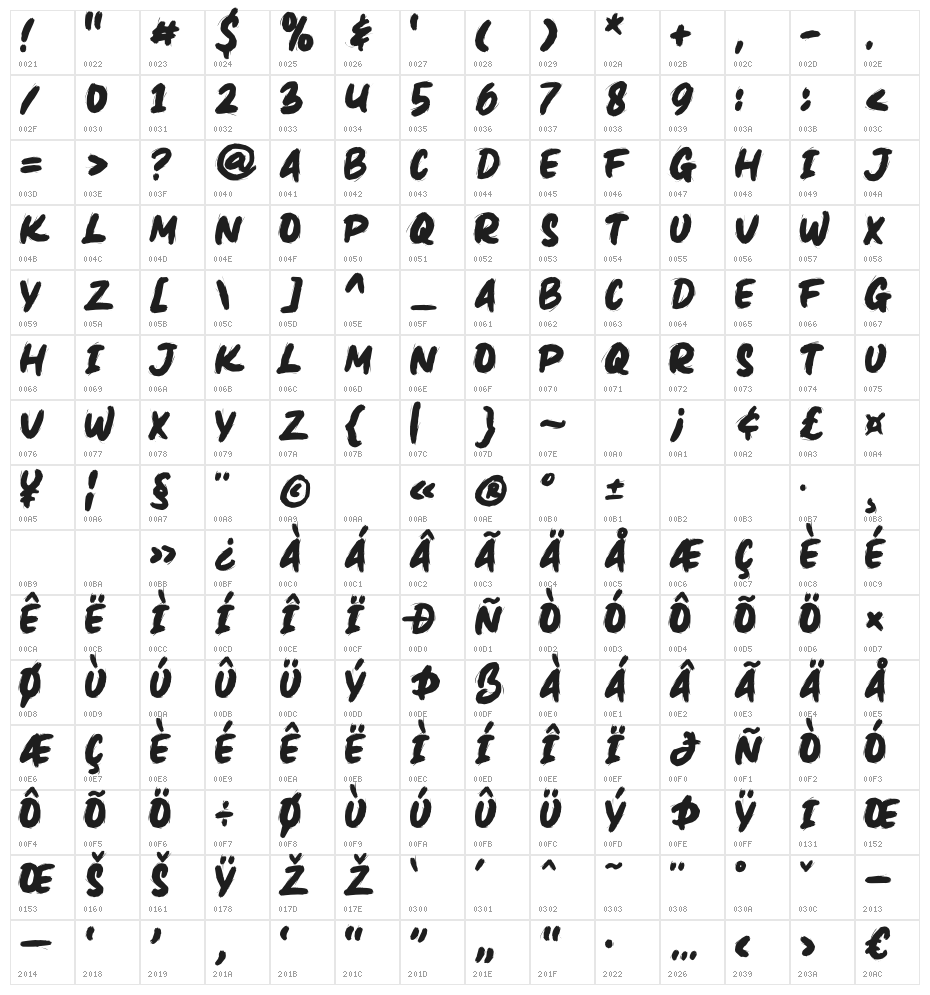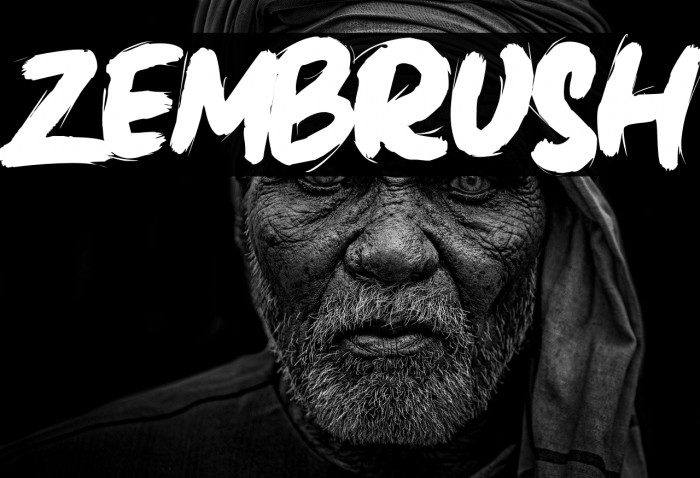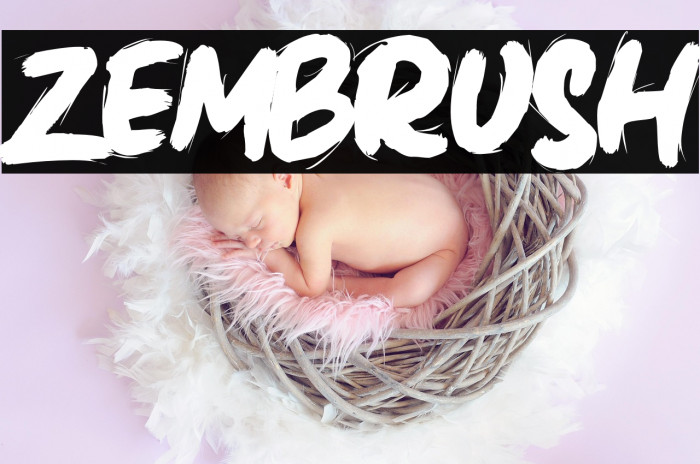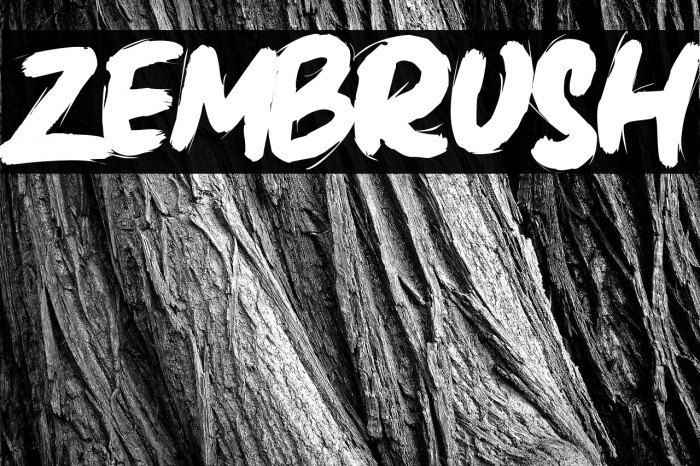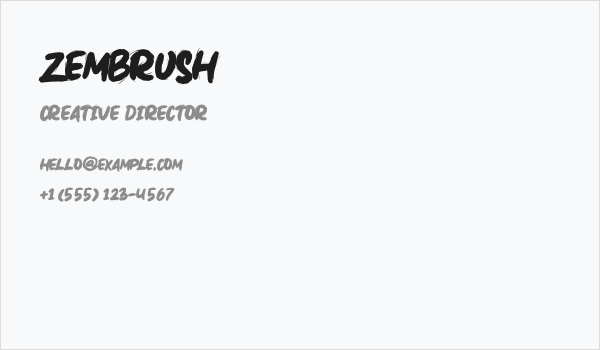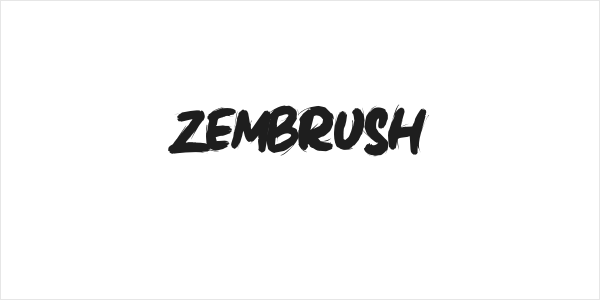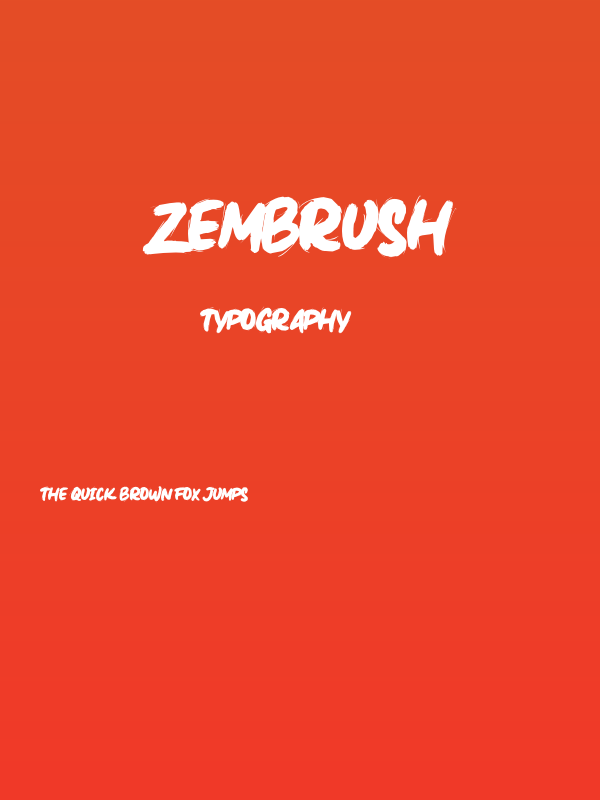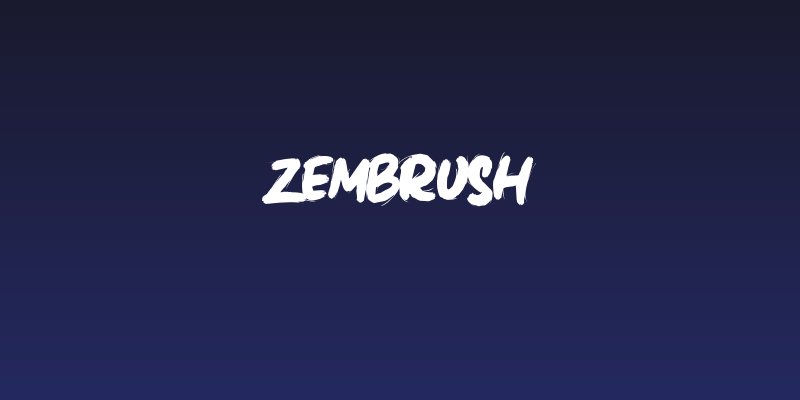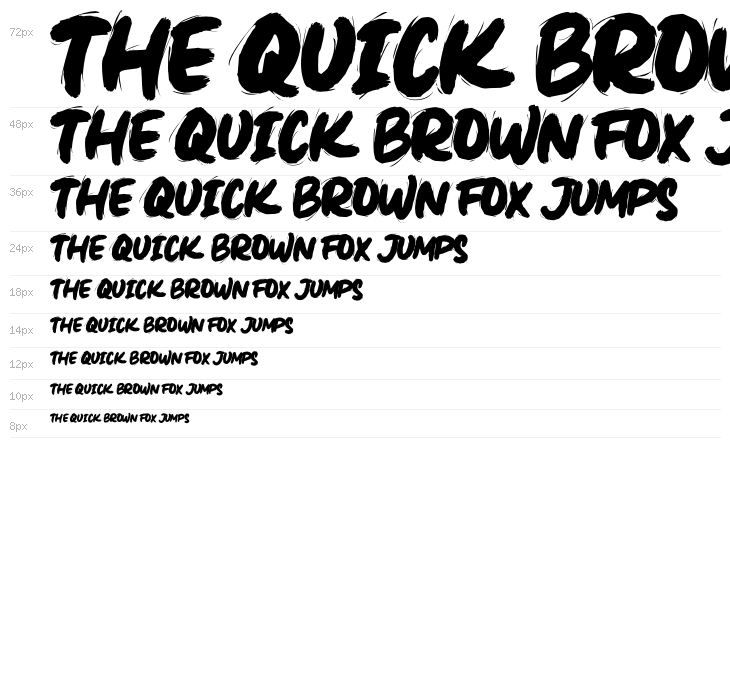
Zembrush Font
Zembrush Description
This font exudes a bold and dynamic brushstroke style, characterized by its thick, expressive lines and energetic flow. The letters are crafted with a sense of movement, giving each character a lively and artistic appearance. The strokes vary in thickness, creating a natural and hand-painted look that is both eye-catching and unique. The font maintains a consistent baseline, while the individual characters have a slightly irregular shape, enhancing its handcrafted feel. This style is perfect for projects that require a personal touch or a creative flair, making it ideal for artistic and expressive designs.